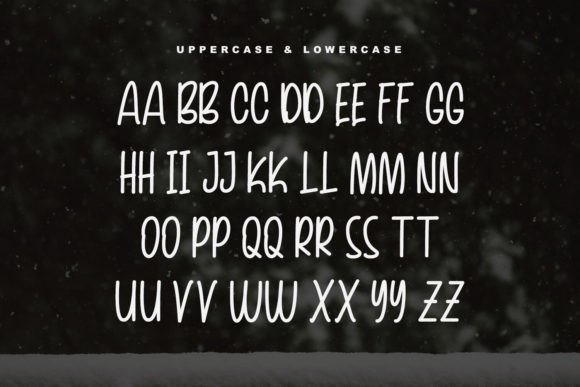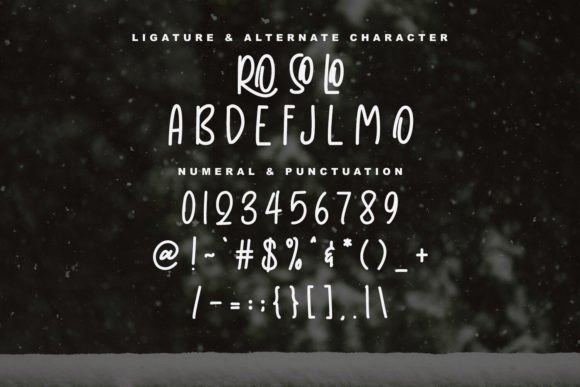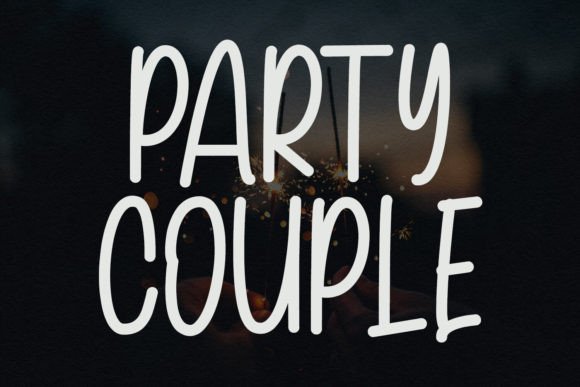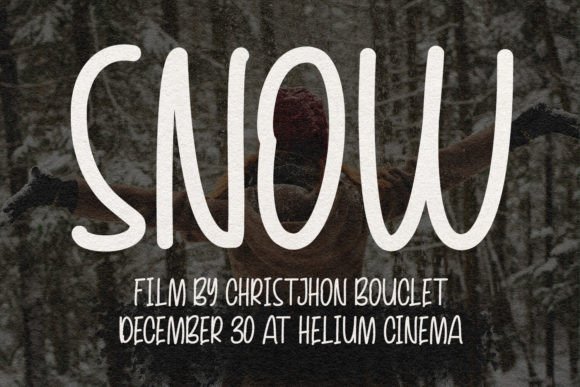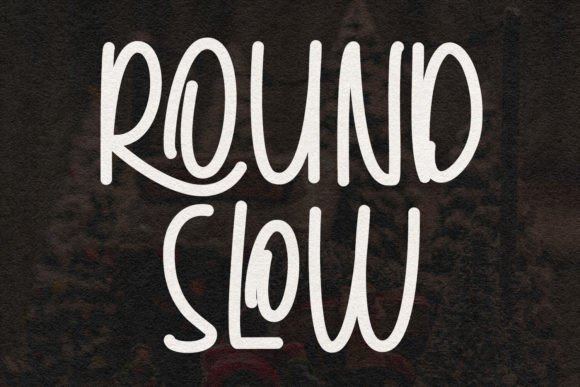
The Bugis Font: A Handmade Display Font to Elevate Your Creative Work
A Personal Review: What I Love About Bugis Font
So, what makes Bugis Font so special? Here are a few things that I absolutely love:
- ✨ Unique Character: Bugis Font has a distinct, handmade feel with heavy strokes and fun character variations. It’s perfect for adding a personal touch to your designs.
- ✅ Multilingual Support: This font supports over 100 languages, making it an excellent choice for global brands or projects with diverse audiences.
- ✅ Ligatures and OpenType Features: Bugis Font comes with ligatures and other OpenType features that allow for creative and dynamic text arrangements.
- ✅ Versatility: Whether you’re designing a logo, social media graphics, movie titles, or book covers, Bugis Font is an excellent choice.
While Bugis Font is an excellent choice for many projects, there are a few quirks to be aware of:
- ⚠️ Legibility at Small Sizes: Due to its handmade nature and heavy strokes, Bugis Font can become less legible at very small sizes. It’s best used for display text or larger design elements.
- 🤔 Limited Use for Body Text: While Bugis Font is amazing for headlines and titles, it might not be the best choice for longer body text due to its stylized nature.
The Story Behind Bugis Font: A Designer’s Inspiration
Bugis Font was inspired by the rich cultural heritage of the Bugis people, an ethnic group from Indonesia known for their skilled craftsmanship and beautiful traditional textiles. The font’s creator aimed to capture the essence of Bugis culture through its unique design, combining heavy strokes and playful ligatures to create a font that’s both memorable and versatile.
| What makes Bugis Font unique? | Bugis Font is unique due to its handmade, display font design with heavy strokes and fun character variations. It also supports over 100 languages and features ligatures for creative text arrangements. |
| Is Bugis Font suitable for body text? | While Bugis Font is amazing for headlines and titles, it might not be the best choice for longer body text due to its stylized nature. It’s best used for display text where its unique character can shine. |
In conclusion, Bugis Font is a stunning handmade display font that can elevate your creative work. With its unique character, multilingual support, and OpenType features, it’s perfect for a wide range of design projects. Whether you’re a designer, crafter, or creative hobbyist, Bugis Font is sure to inspire your next masterpiece.